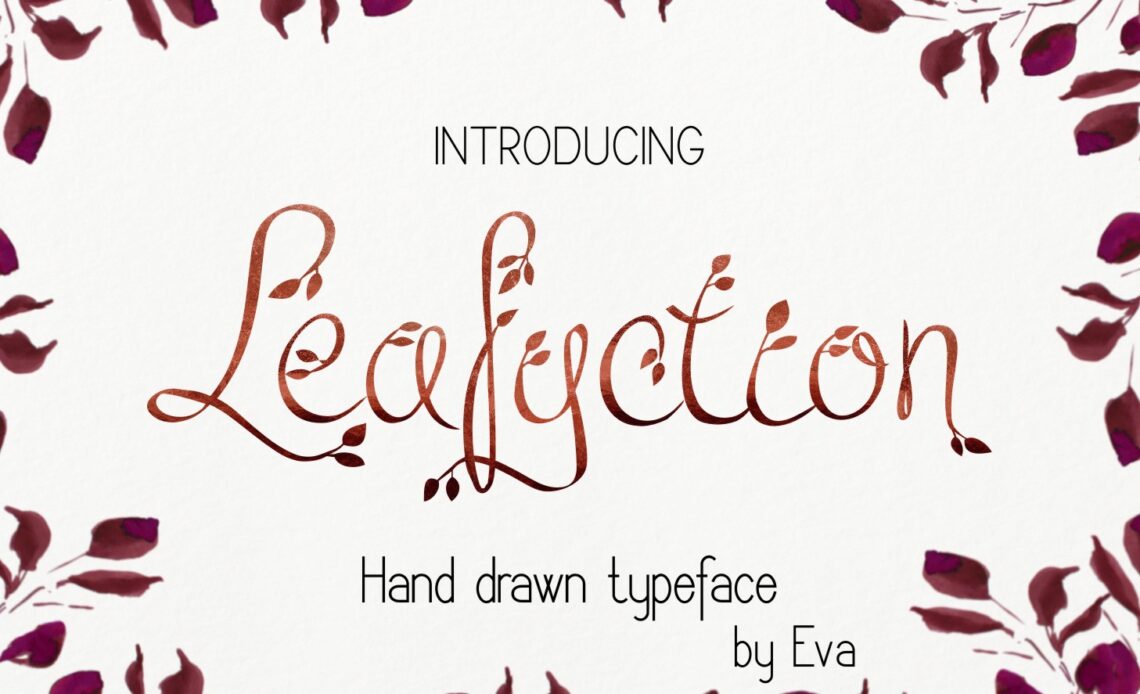
Leafyction Font
Journey into a realm of captivating creativity with Leafyction Font, an enchanting handwritten typeface that will transform your designs into masterpieces. Digital Typeface Studio, the visionaries behind this font, have meticulously crafted each letter, adorning it with delicate laurel leaves that dance across the page like whispers of nature.
Leafyction Font is more than just a collection of characters; it's an invitation to embark on an artistic odyssey, where your imagination knows no bounds. Its graceful strokes and intricate details evoke a sense of elegance and charm, making it the perfect choice for projects that demand a touch of sophistication.
Step into a world of endless possibilities with Leafyction Font. Whether you're a seasoned designer or just starting your creative journey, this font will elevate your work to new heights. Its versatility knows no limits; it seamlessly adapts to a myriad of projects, from wedding invitations and branding designs to social media graphics and eye-catching posters.
With Leafyction Font, you're not just downloading a font; you're acquiring a powerful tool that will ignite your creativity and unleash your inner artist. Its enchanting beauty will captivate your audience, leaving them spellbound by the elegance of your designs.
So why settle for ordinary fonts when you can immerse yourself in the extraordinary with Leafyction Font? Its exquisite design and boundless versatility will transform your projects into breathtaking works of art that speak volumes about your creativity and passion. Embrace the allure of Leafyction Font today and embark on a journey of artistic discovery that will leave you breathless.